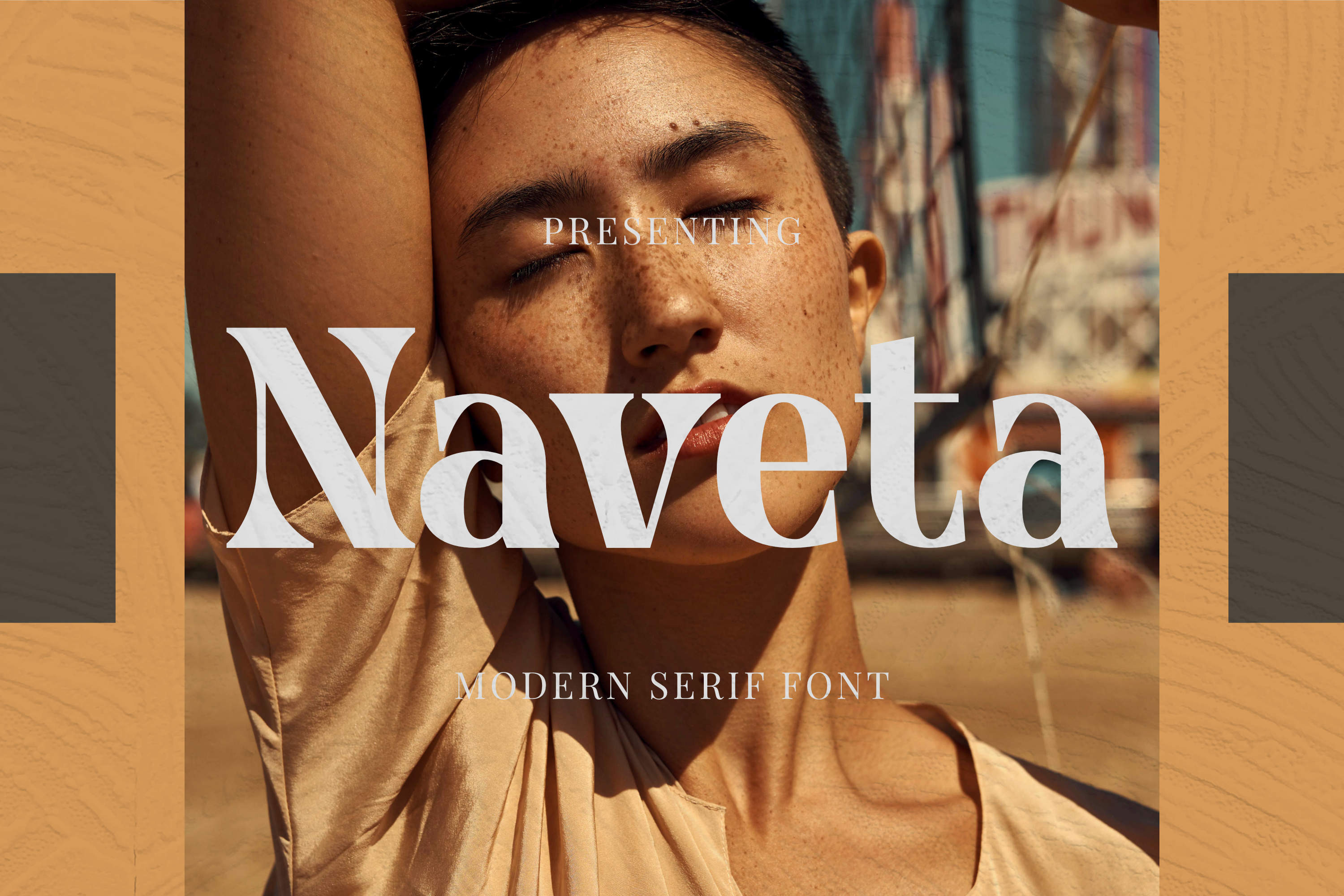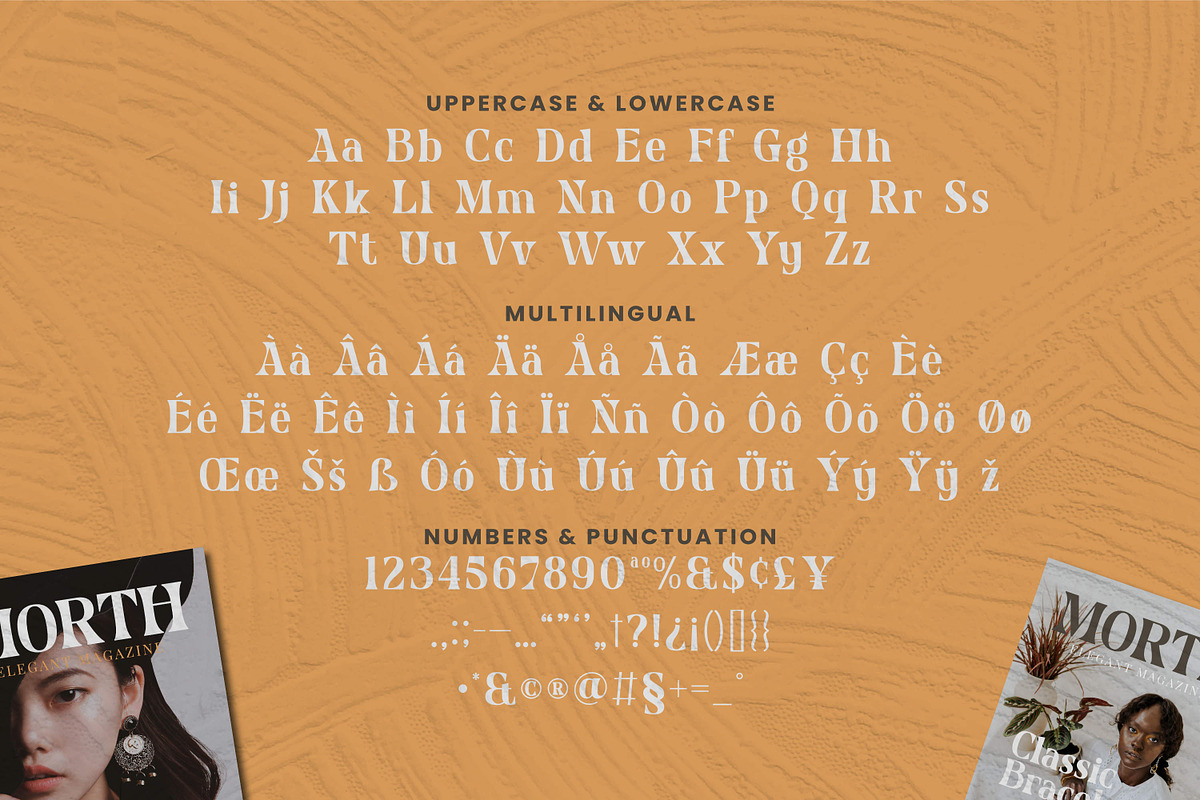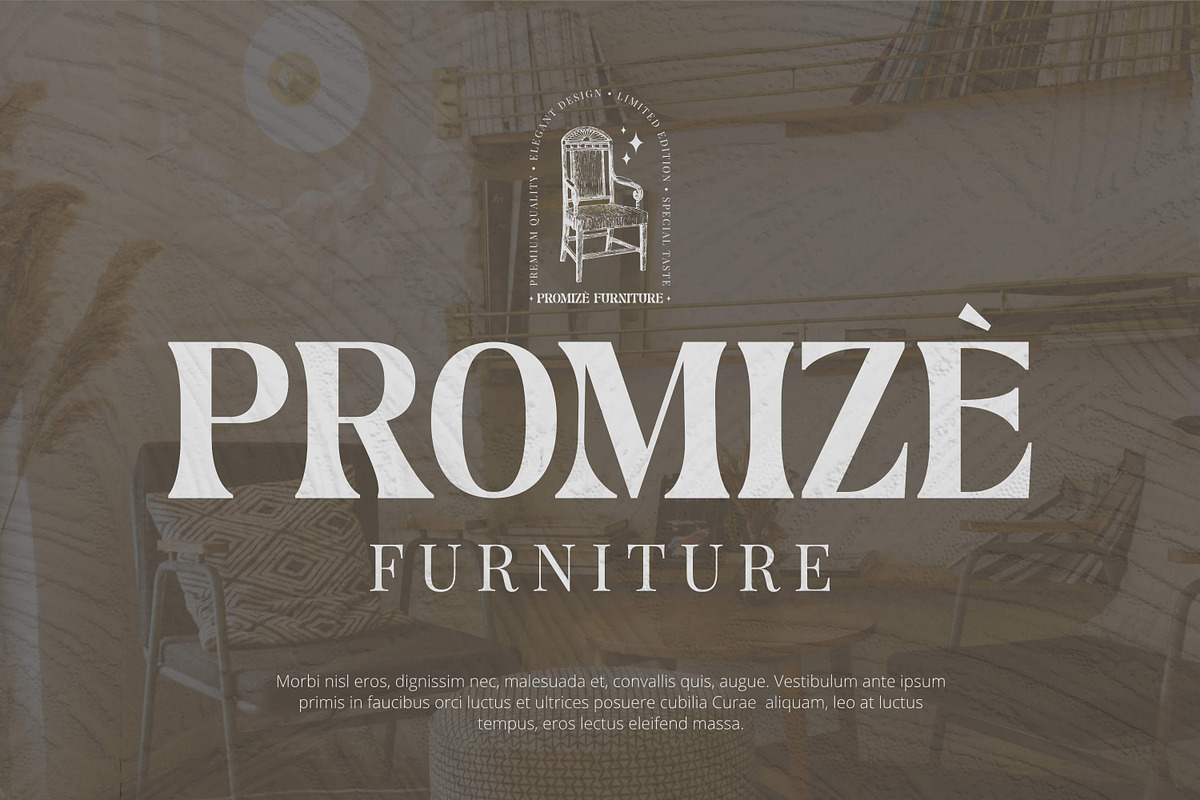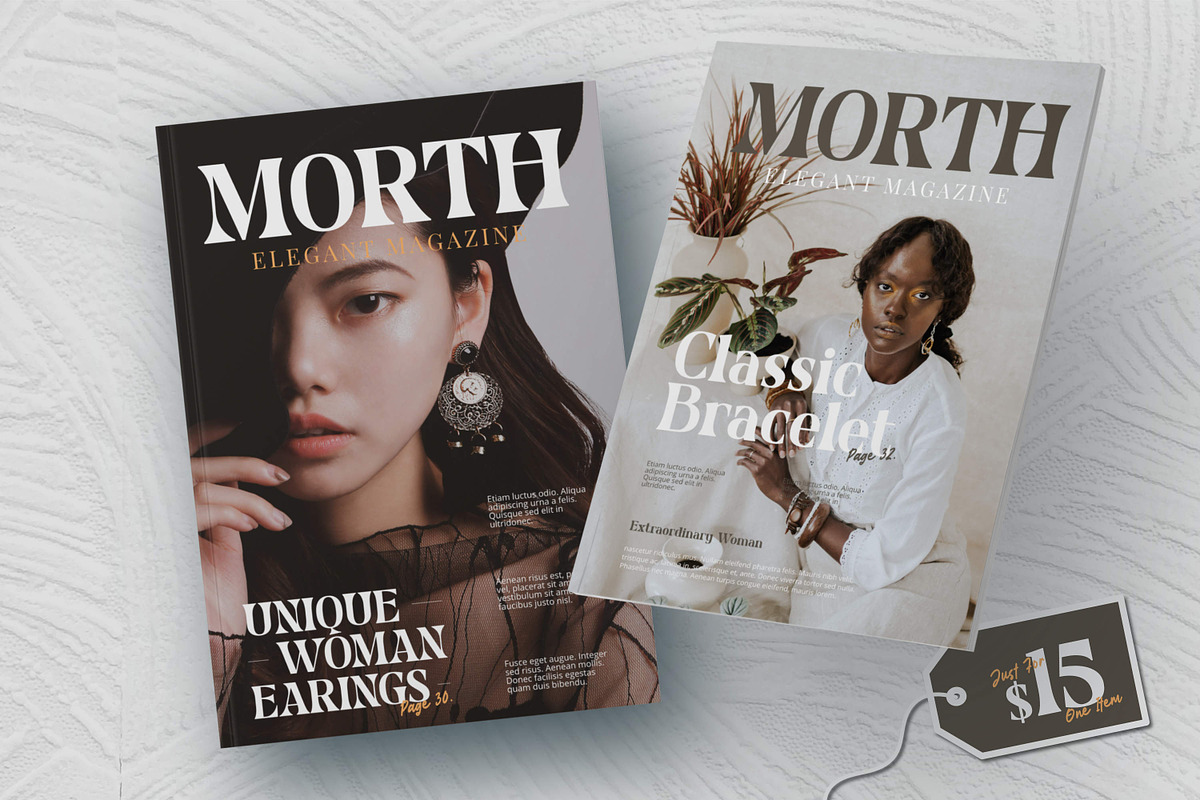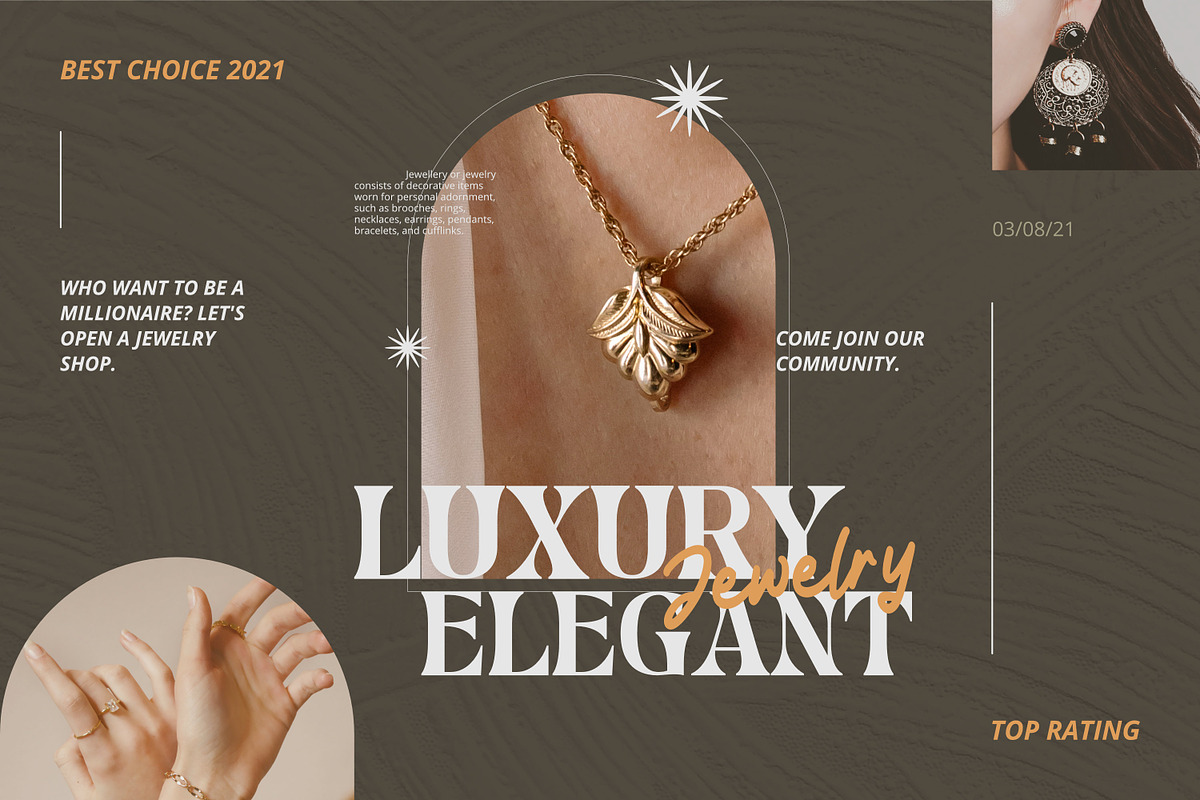
Naveta - Modern Serif Font
Introducing “Naveta” - A modern serif font with multilingual support. Naveta is very versatile fonts. Perfect for branding projects, logos, magazine imagery, wedding invitations, posters, clothing, packaging, website headers, or simply as a stylish text overlays to any background image.